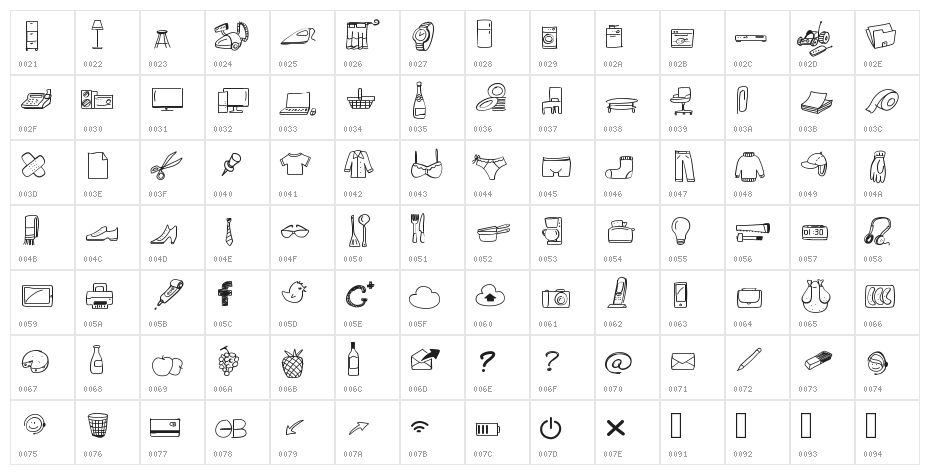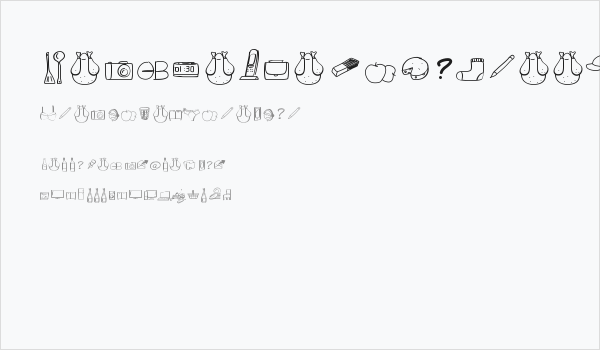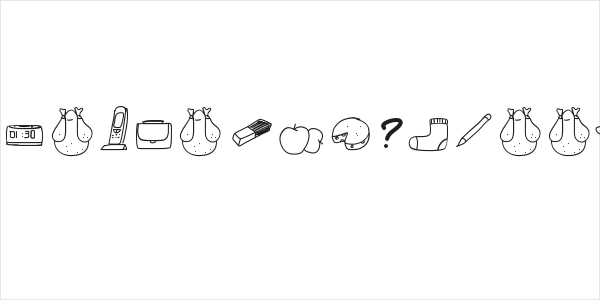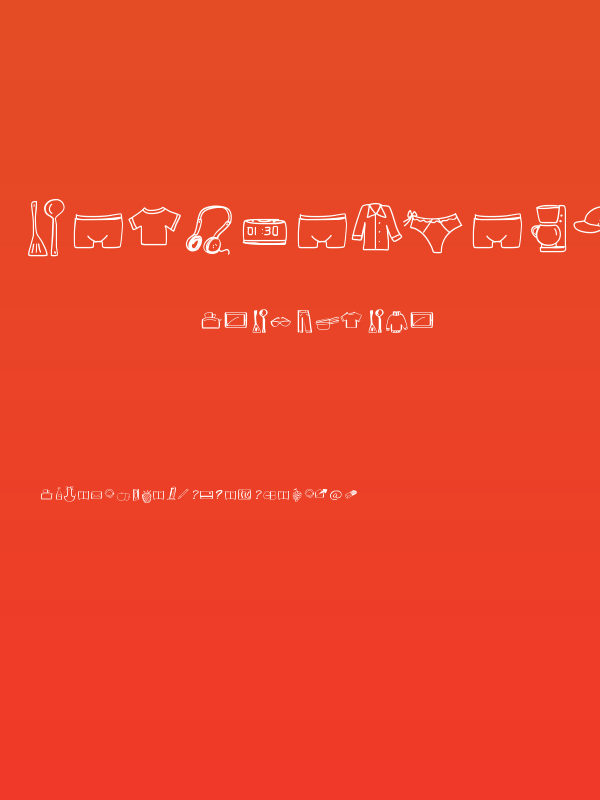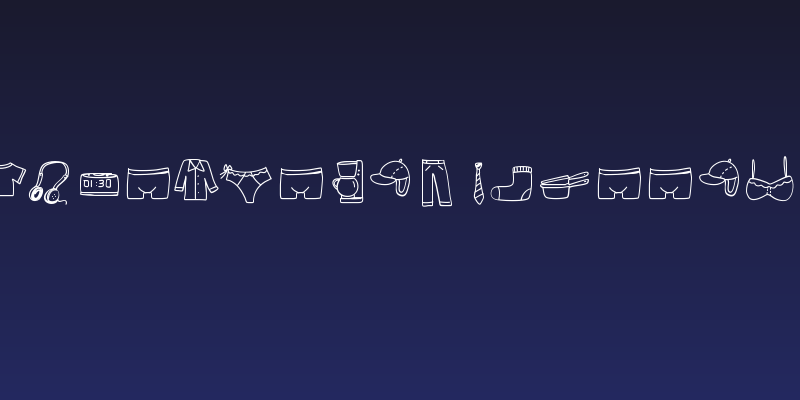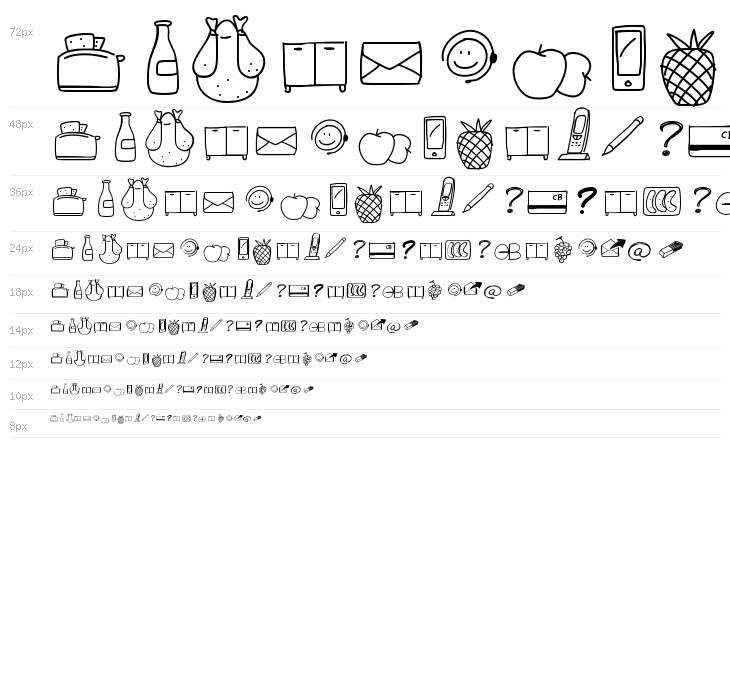
PeaxWebdesignFreeIcons Font
PeaxWebdesignFreeIcons Description
A playful, hand-drawn icon set with a casual and informal style, featuring a variety of everyday objects, clothing, food, electronics, and symbols. The lines are uneven and organic, giving a whimsical and approachable appearance. The icons are outlined with no filled areas, maintaining a consistent stroke weight throughout.
| Overall Style | Decorative, Playful, Hand-drawn |
| Use Case | Icons, UI elements, Illustrations |
| Proposed Projects | Web design, mobile apps, infographics, educational materials, children's content, casual branding. |